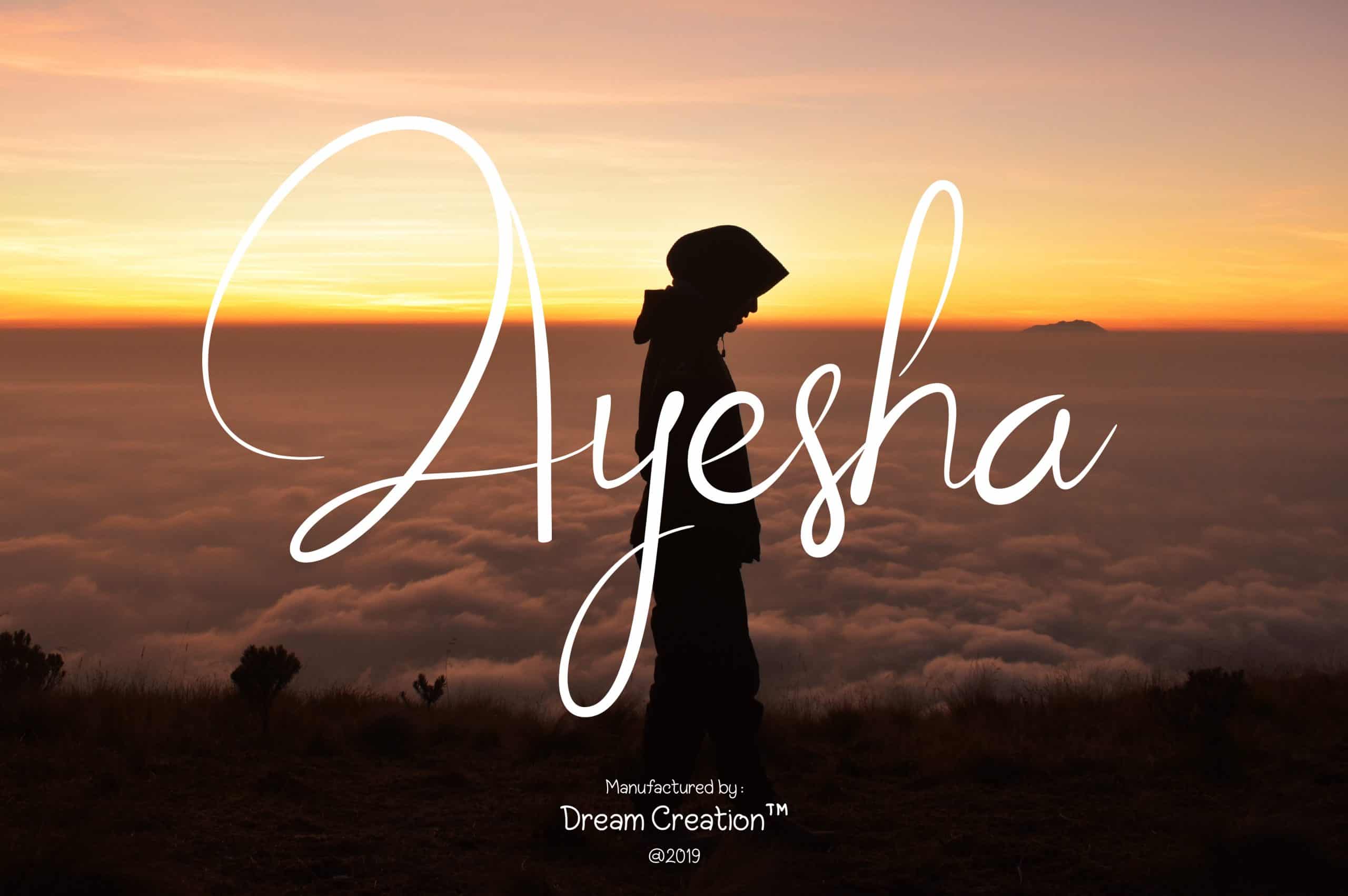
aysheea
Explore the Unique Charm of Aysheea Font
Aysheea, crafted by master typographer John Smith in 2022, brings a unique aesthetic to modern typographic designs. This font’s distinct script style is perfect for web design, invitations, branding, and any project that seeks a personal touch. Its flowing letters and artistic strokes create a visually appealing connection that can captivate audiences in various applications.
The Creative Journey Behind Aysheea Font
Aysheea’s design roots stem from the desire to combine traditional calligraphy with modern elements, resulting in a typeface that is both elegant and approachable. The designer, John Smith, drew inspiration from classic script fonts while incorporating contemporary nuances, making Aysheea a go-to choice for unique branding and personalized stationery.
Applications of Aysheea Font and Its Unique Qualities
Aysheea Font is ideally suited for branding, art prints, invitations, and any DIY projects that benefit from a touch of elegance. Its unique letterforms and flowing aesthetics stand out in digital and print media, making it the perfect choice for artists, bloggers, and entrepreneurs aiming to leave a lasting impression.